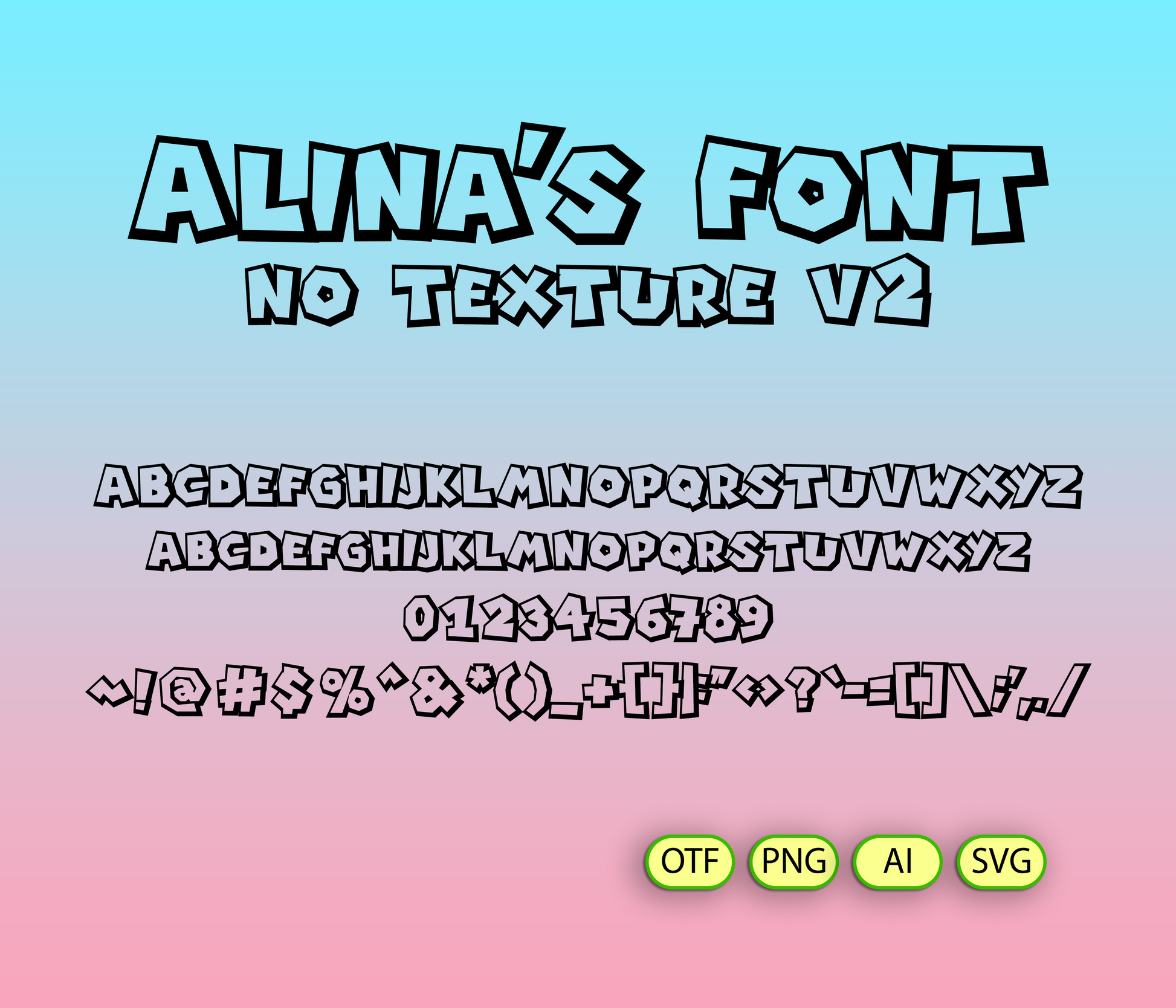
Mushroom Quest Font
Leap into the vibrant world of block-breaking heroes with our Mushroom Quest font. This energetic typeface embodies the spirit of twin plumber siblings' adventures through enchanted realms filled with power-ups and pipe warps. Perfect for projects that celebrate classic platformer excitement and coin-collecting thrills.
Our Mushroom Quest font showcases cheerful, brick-style letters with a touch of star-powered magic, capturing the essence of retro gaming's golden age. Ideal for:
From promotional materials for retro gaming festivals to merchandise design for platformer enthusiasts, or adding a touch of mushroom kingdom magic to personal projects, this font effectively communicates the joy and excitement of classic adventuring. Ready to infuse your creations with the spirit of block-breaking quests? This font is your star power-up to playful, engaging design.